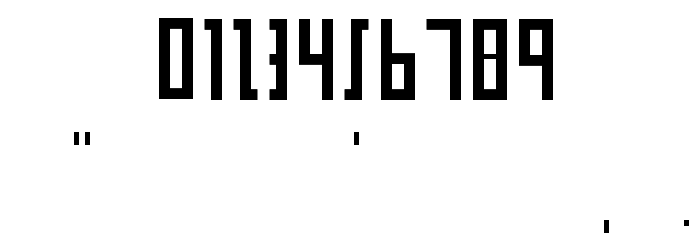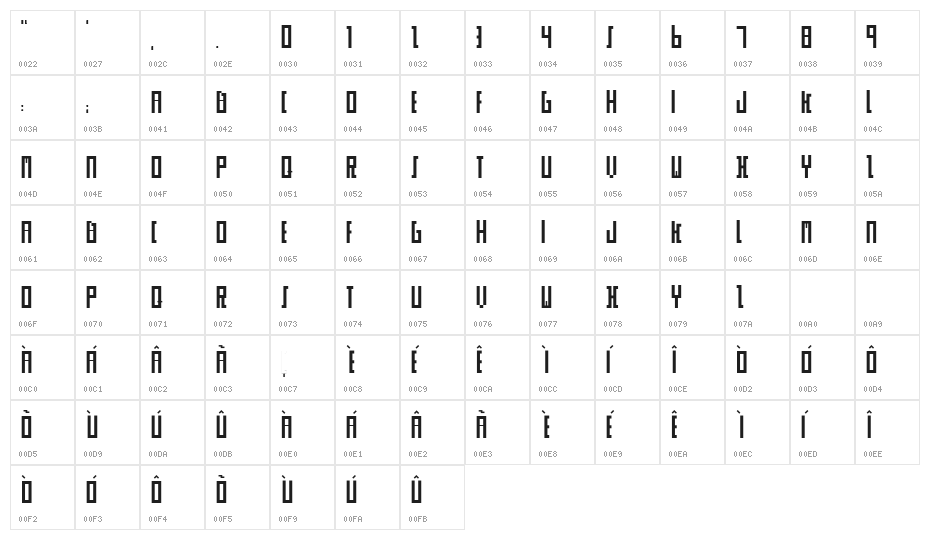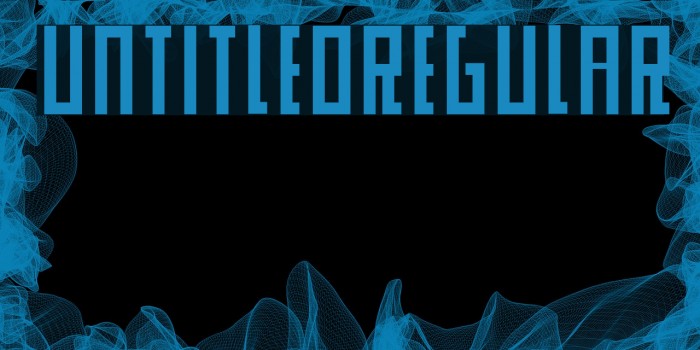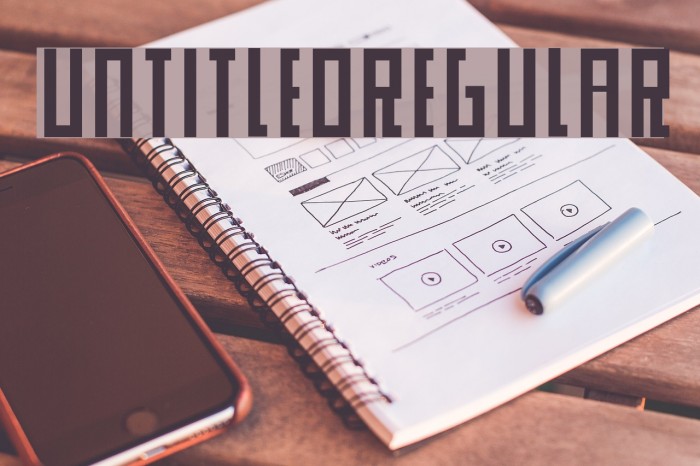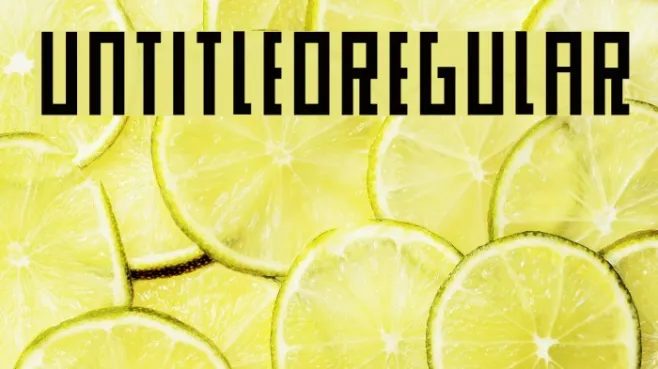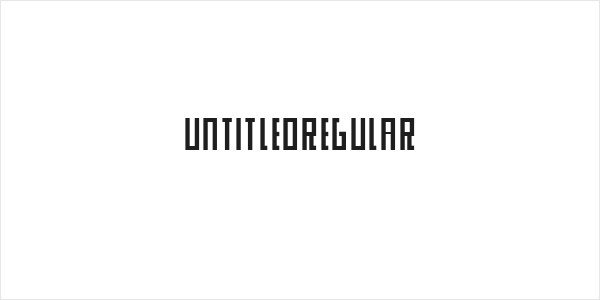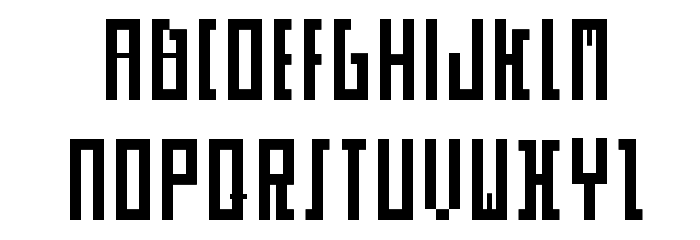
UntitledRegular Font
UntitledRegular Description
This font features a bold, geometric design with a strong, angular structure. The characters are uniformly tall and narrow, giving it a condensed appearance. The uppercase and lowercase letters share a similar height, enhancing its modern and industrial feel. The numerals and special characters maintain the same angular style, ensuring consistency across all glyphs. The overall design is clean and minimalistic, making it suitable for projects that require a contemporary and edgy look.
| Proposed Projects | Ideal for branding, posters, headlines, and any design that requires a strong, modern aesthetic. |